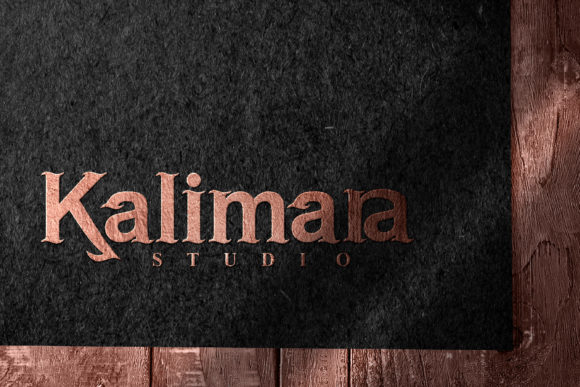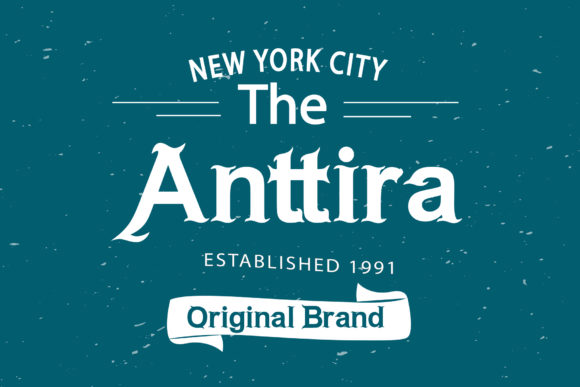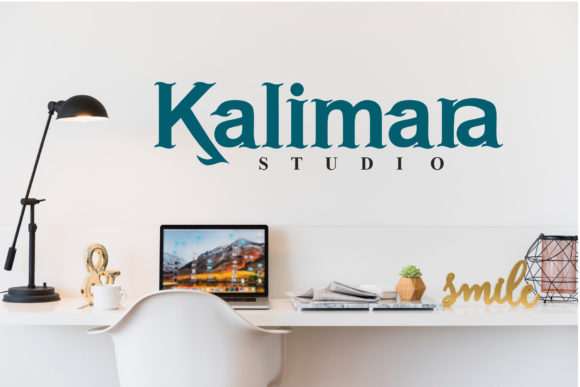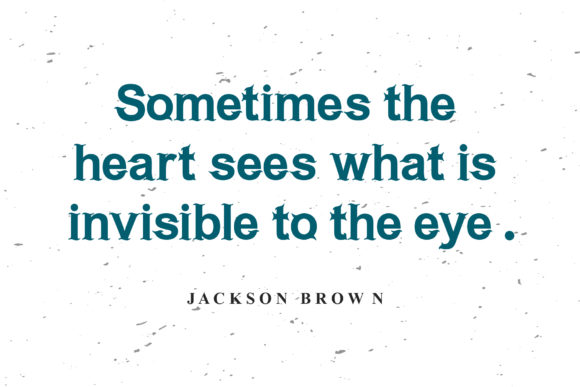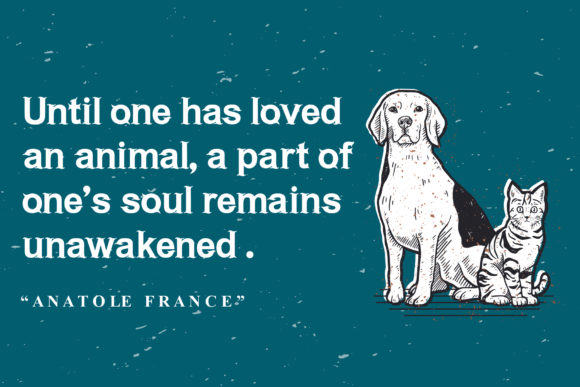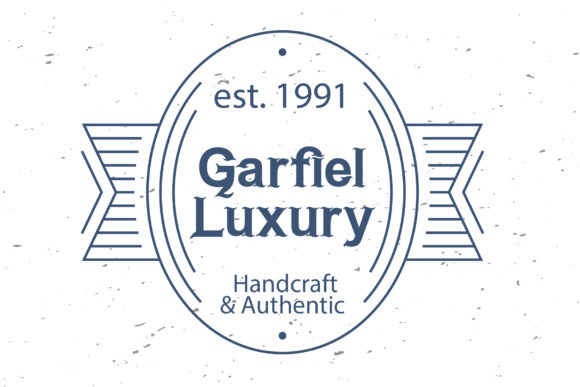
Introduction to Flokiestet Font Font
Fonts play a crucial role in design, and the Flokiestet Font font is a typeface that brings both character and versatility to any project. Whether you’re working on a branding project, a website, or a print design, the Flokiestet Font font offers a unique style that can elevate your work.
Flokiestet is an incredibly unique display font.
Masterfully designed to become a true favorite, this font has the potential to bring each of your creative ideas to the highest level .
Key Features of Flokiestet Font Font
Why Choose Flokiestet Font Font?
The Flokiestet Font font is more than just a typeface – it’s a design tool that helps you communicate your message with style and clarity. Its unique character set and versatile design make it suitable for a wide range of applications, from elegant invitations to bold headlines.
With its carefully crafted letterforms and balanced proportions, the Flokiestet Font font ensures readability and visual appeal across all mediums.
What makes Flokiestet Font font special?
The Flokiestet Font font stands out with its unique design, exceptional readability, and versatility across various design applications.